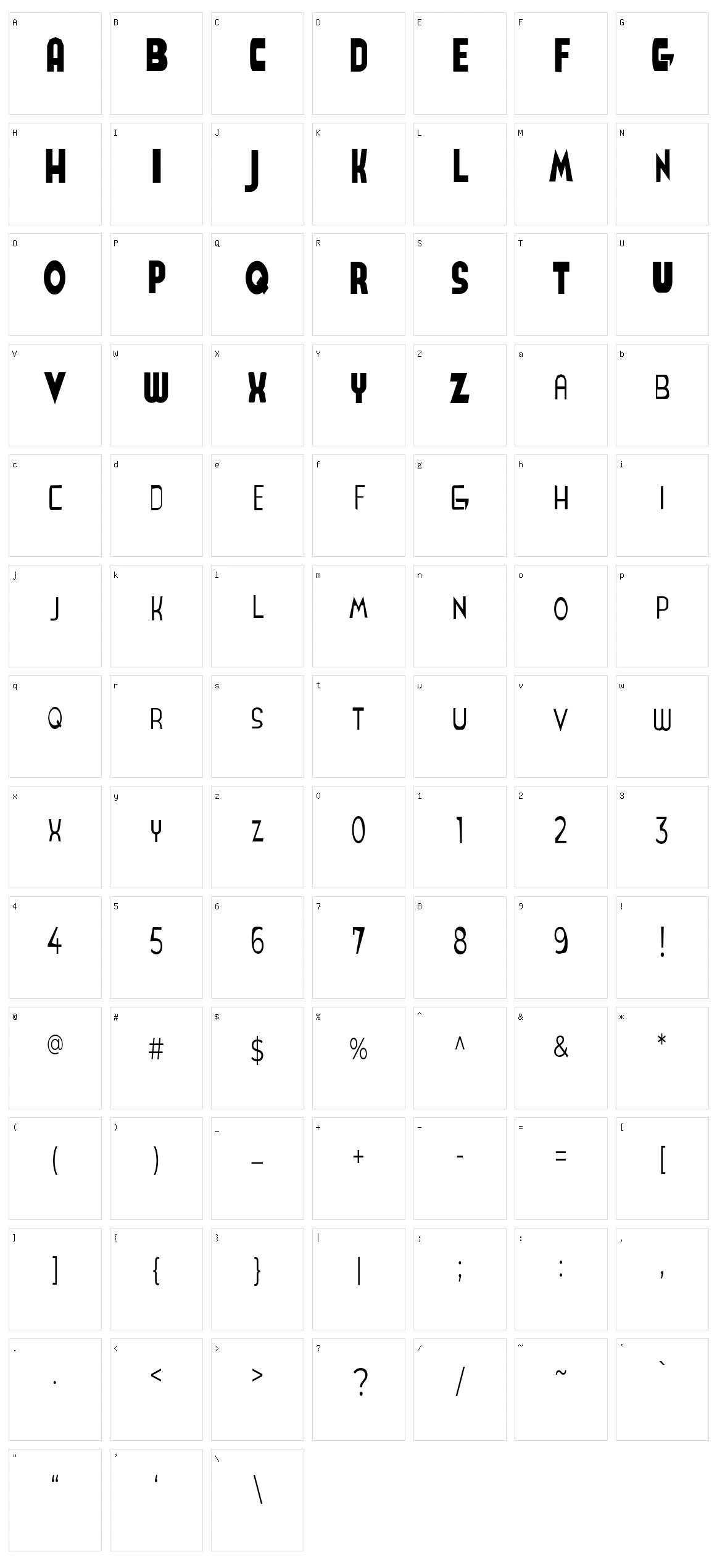
The free font Schoenmaker is carefully designed by Muhammad Iqbal Faizin, showcasing a thoughtful balance of creativity and usability and falls under the Distorted font style. When you download the ZIP file, it contains only 24.3 KB of font files, making it lightweight and quick to download. Please review the license details below to understand permitted usage and distribution rights. If license information is not available, we recommend using this font for personal projects only or contacting the author directly for commercial usage permissions.